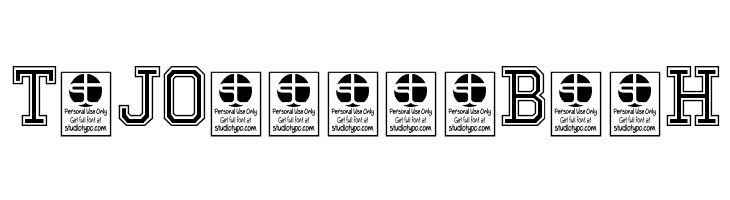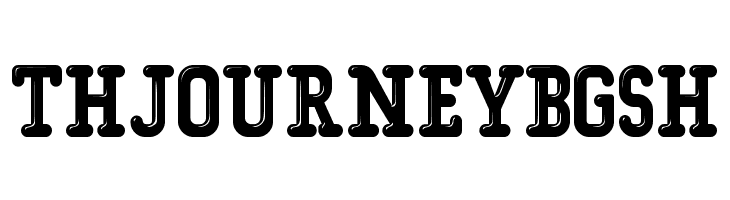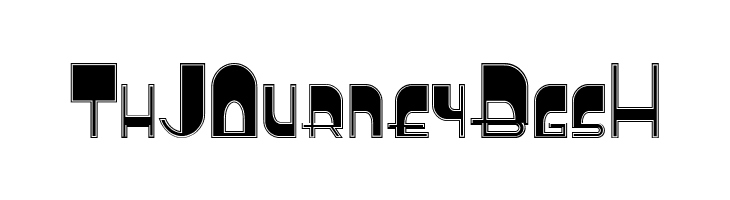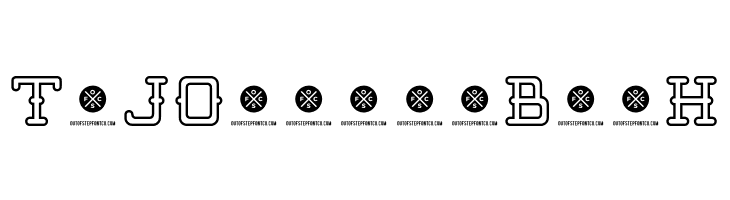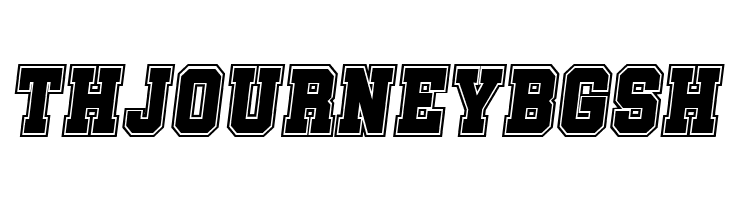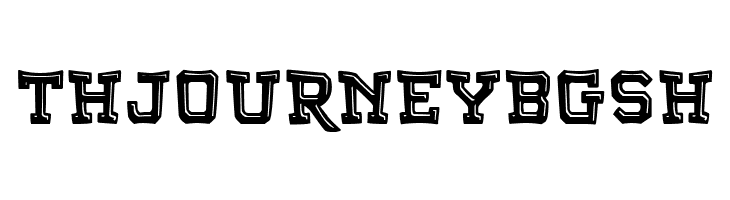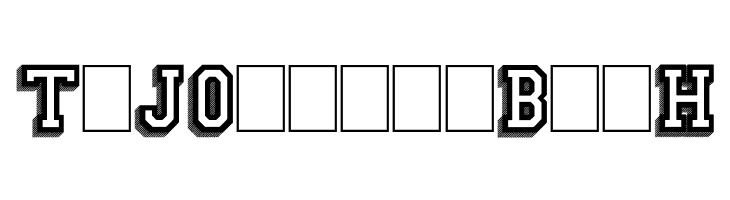
A bold, outlined collegiate-style font with a strong, structured appearance.
A bold, collegiate-style font with strong, blocky characters and pronounced serifs.
A bold, collegiate-style font with strong geometric shapes and a three-dimensional effect.
A bold, geometric font with a college-inspired design and modern cut-out details.
A bold, outlined font with a vintage sports aesthetic.
A bold, blocky serif font with a collegiate and athletic style.
Bold, outlined collegiate font with an athletic, italicized style.
A bold, decorative font with a collegiate, vintage style.
A bold, three-dimensional collegiate-style font with strong outlines and shadow effects.
A bold, distressed collegiate-style font with a vintage, worn effect.